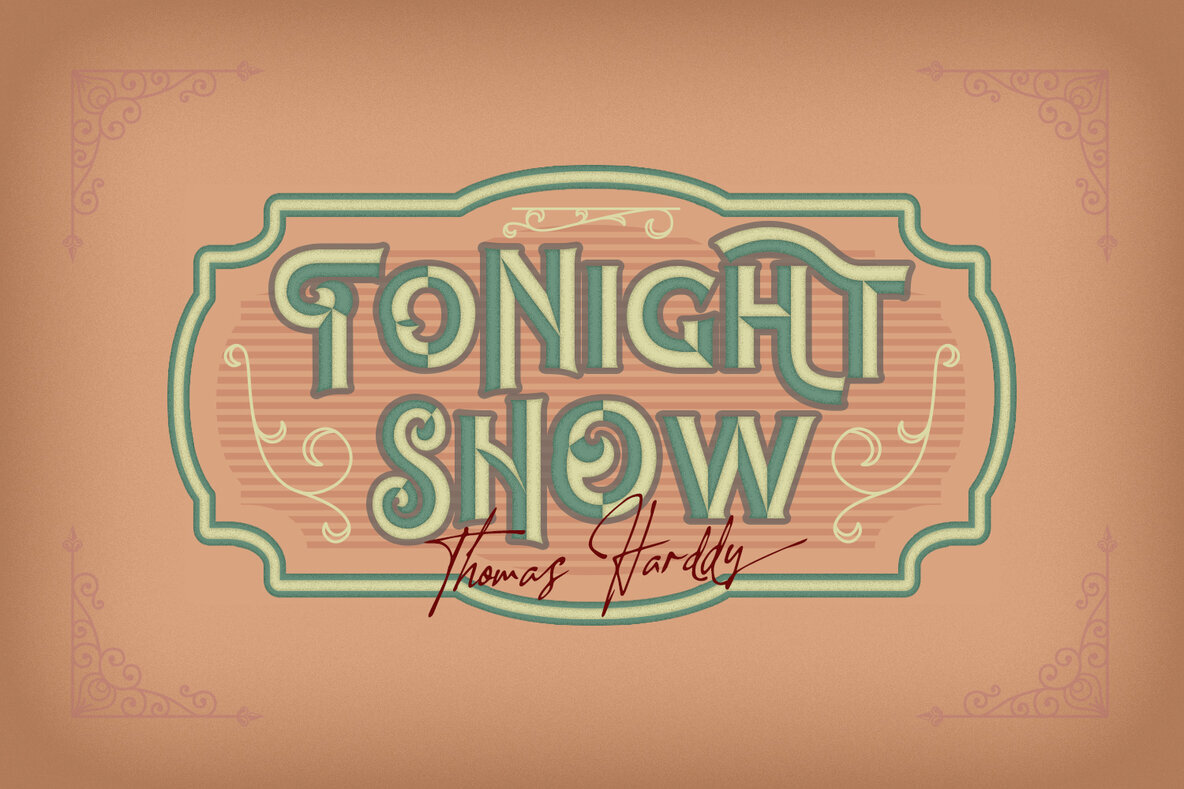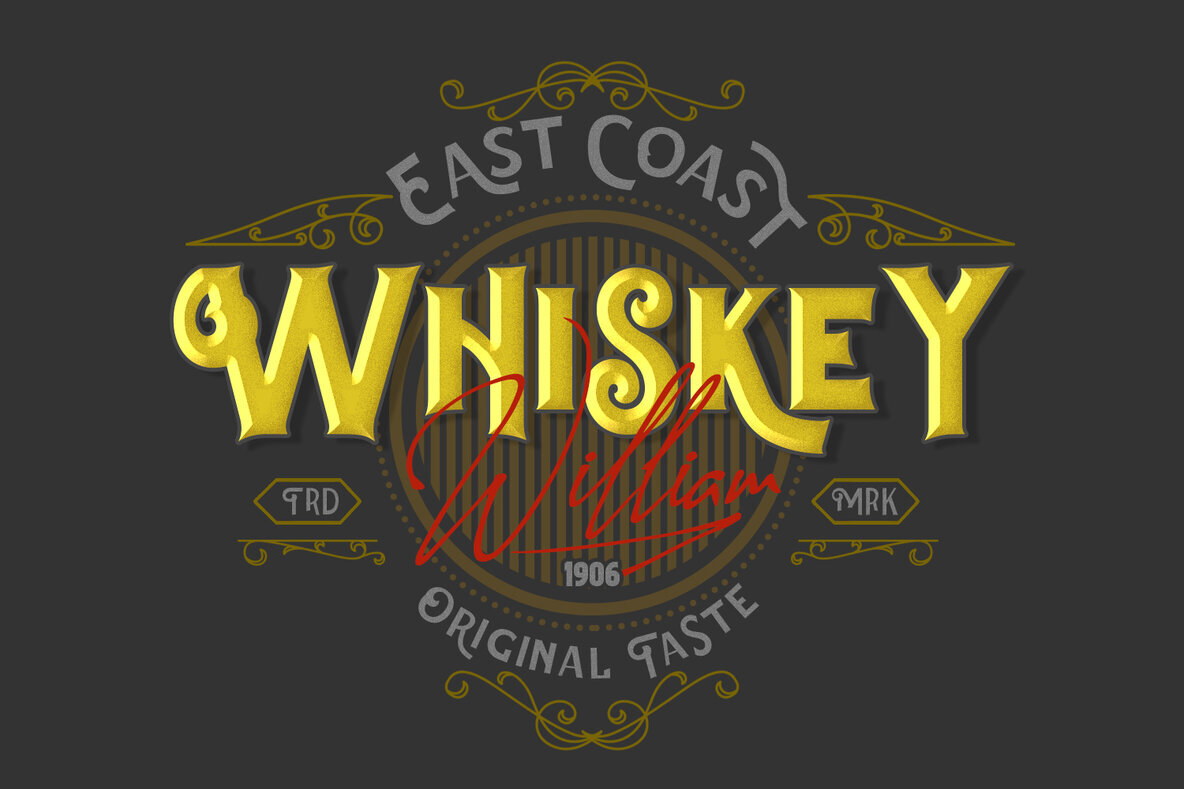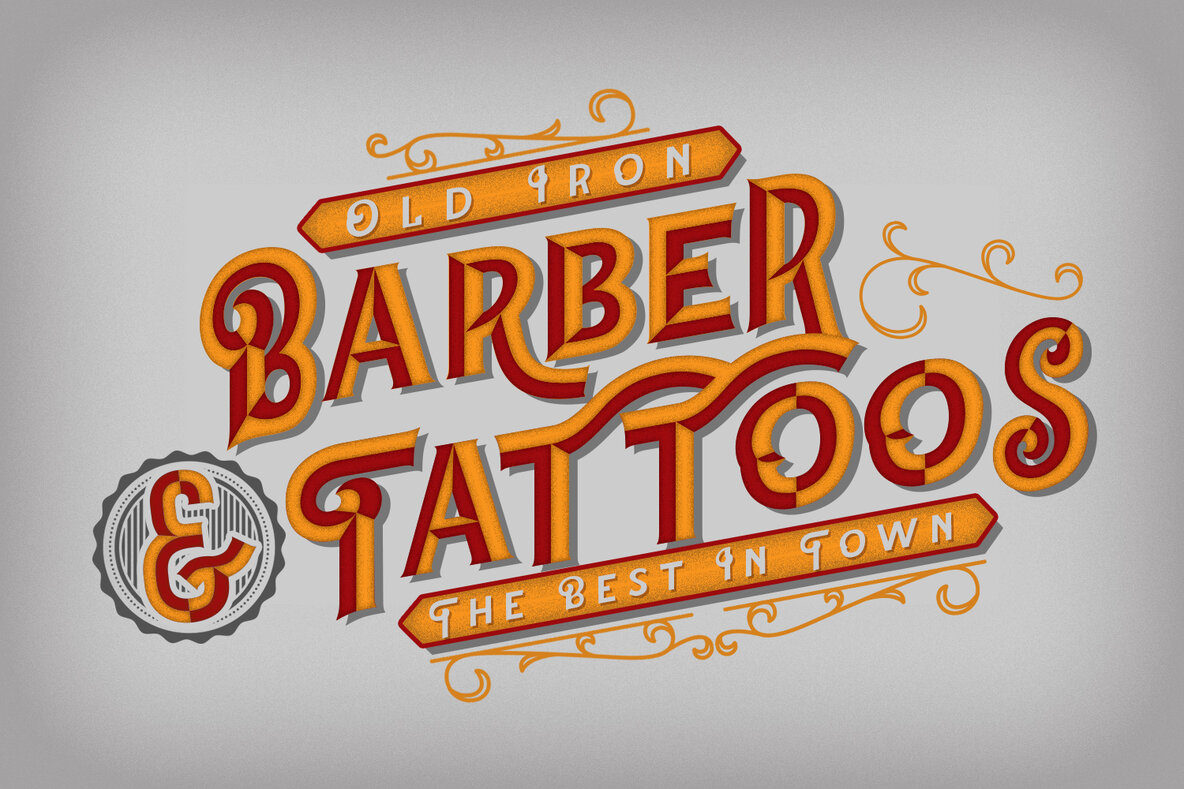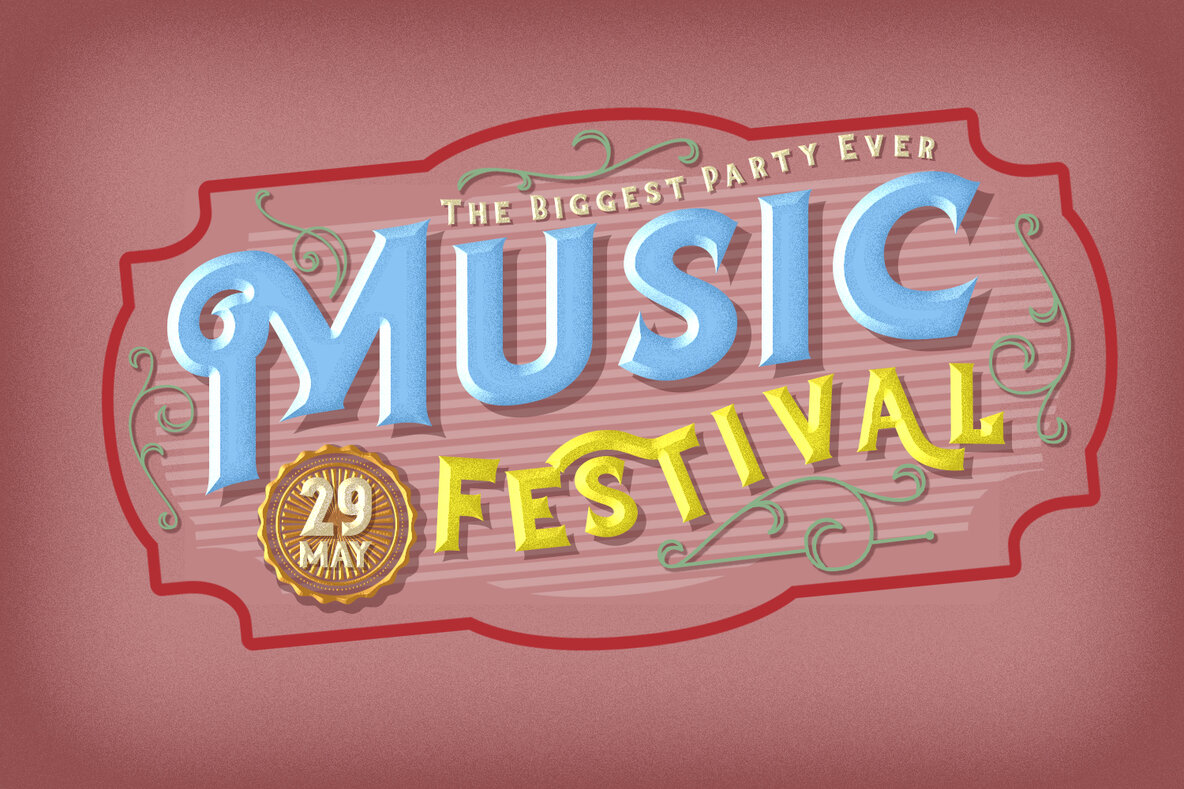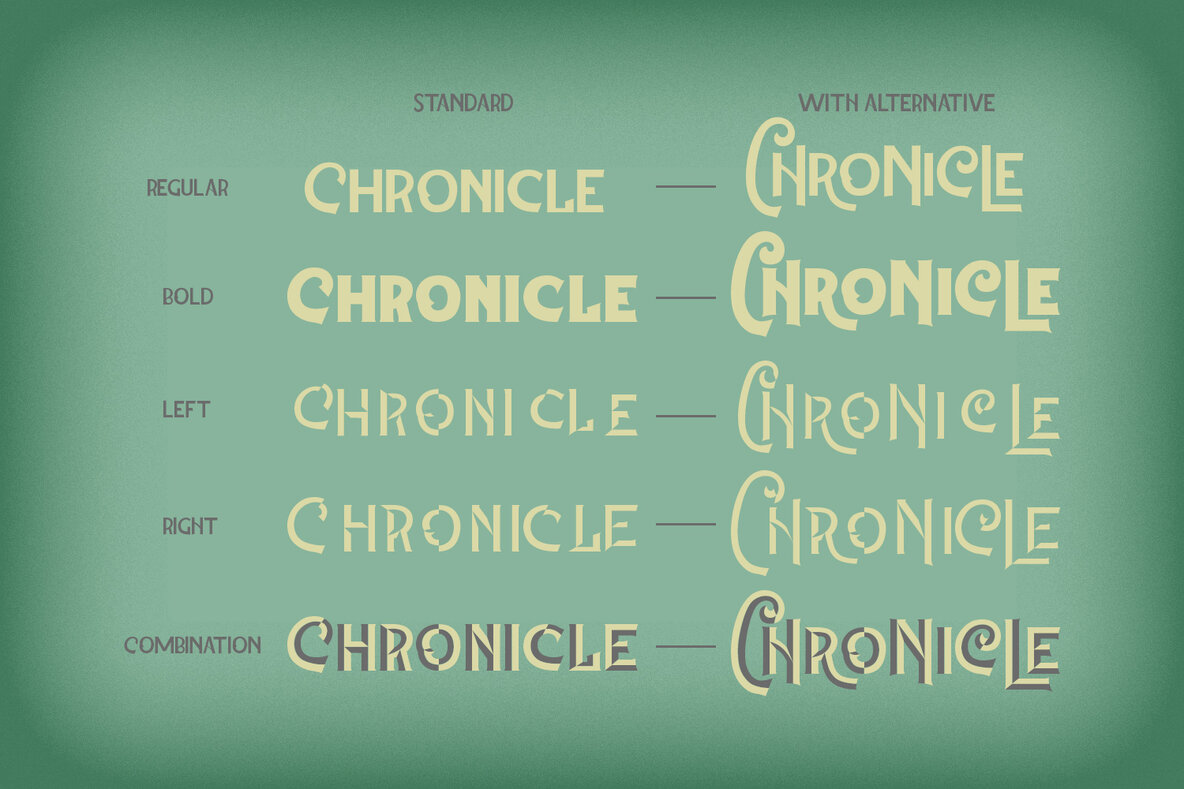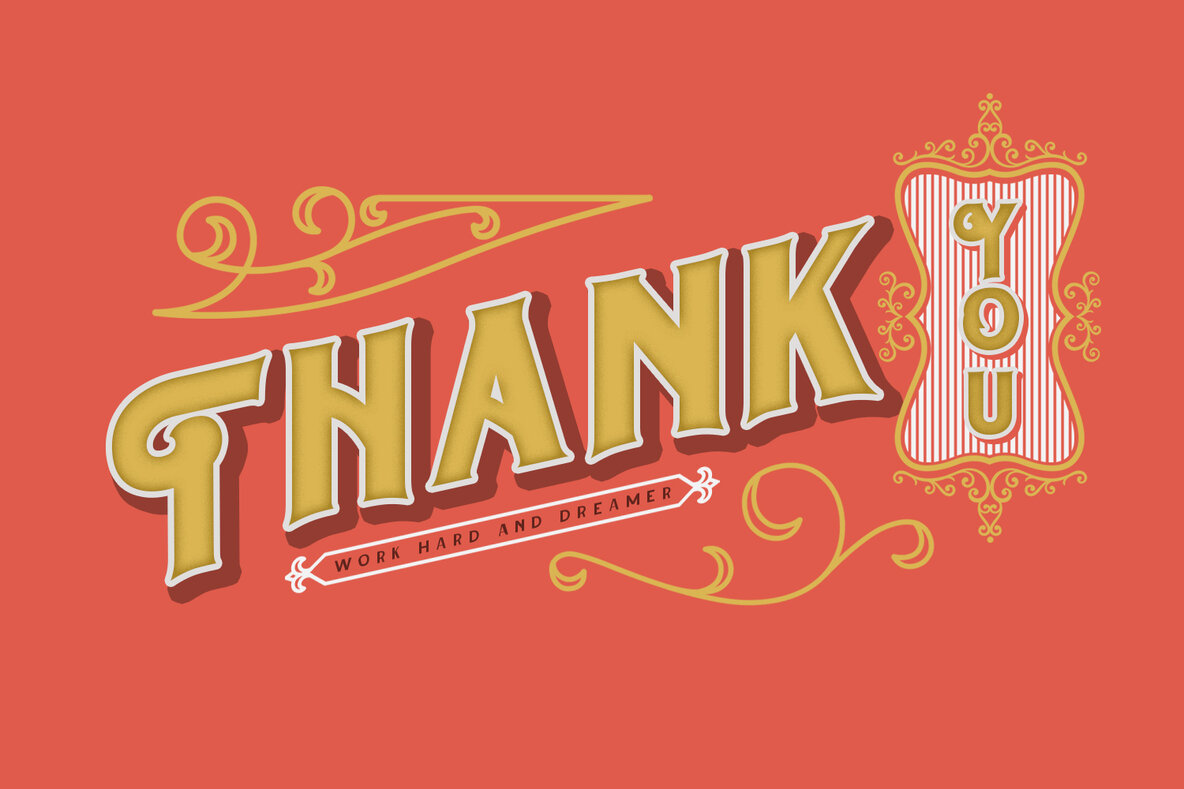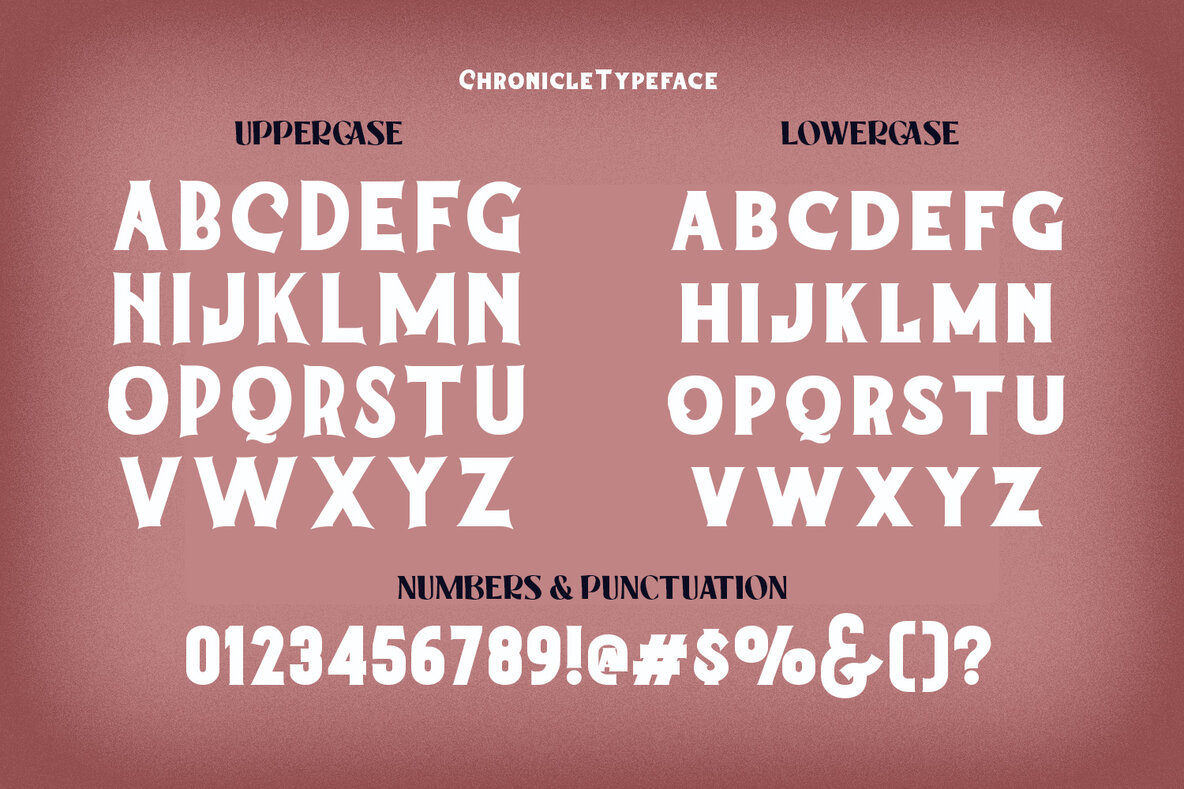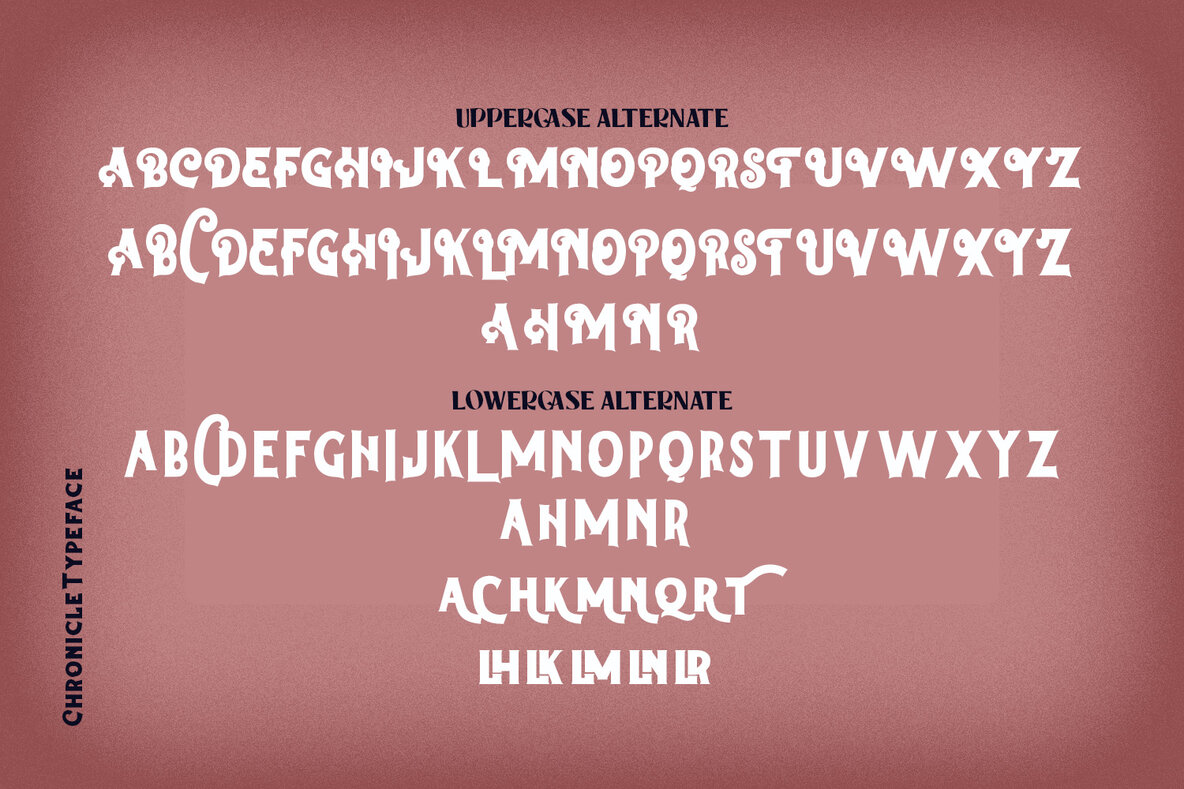
The Chronicle Font
Chronicle Thin
Chronicle Light
Chronicle Left Side
Chronicle Right Side
The Chronicle font embodies the essence of versatility, offering both Regular and Bold weights to suit a wide array of design needs. Perfect for poster design, book covers, merchandise, and even fashion campaigns, this typeface adapts seamlessly to diverse creative projects. Whether you're creating newsletters, branding materials, advertising content, magazines, greeting cards, album covers, or quote designs, The Chronicle provides a stylish and effective solution. OpenType features enhance The Chronicle's adaptability. Utilize it in logos, product displays, clothing, and an array of other contexts. Its capability to mix and match letter pairs allows for personalized typographic expressions, facilitating unique and engaging designs. With The Chronicle, new dimensions are effortlessly accessible for all your typographic ventures.The Chronicle: A Versatile Layered Typeface